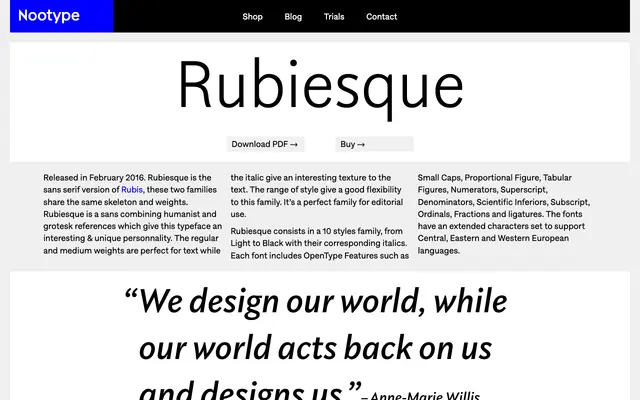
Rubiesque
A humanist sans with grotesque leanings, sharing its skeleton with the serif family Rubis across ten styles from Light to Black with matching italics.
Released in February 2016, Rubiesque is the sans companion to Rubis, the two families sharing the same underlying skeleton and weight range. The mix of humanist and grotesque references gives the text weights a warmth suited to body copy, while the italics add texture at longer settings. OpenType features include small caps, multiple figure styles, fractions, ordinals and ligatures, with character coverage extending across Central, Eastern and Western European languages.
The foundry describes Rubiesque as combining humanist and grotesque references, placing it firmly in the humanist sans tradition while drawing on grotesk structure for a distinctive hybrid character.